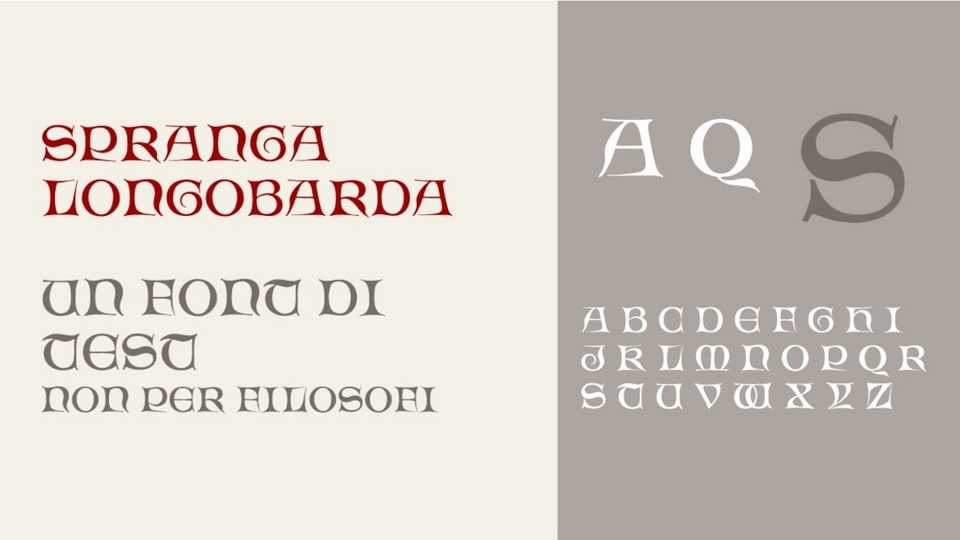
Download Spranga Longobarda font, a decorative typeface based on scans of drawings by Albert Angus Turbayne (1866-1940). This font transforms his beautiful sketches into a unique typographic expression, bringing a touch of vintage charm and artistic flair to your designs.
Designer: Michele Casanova